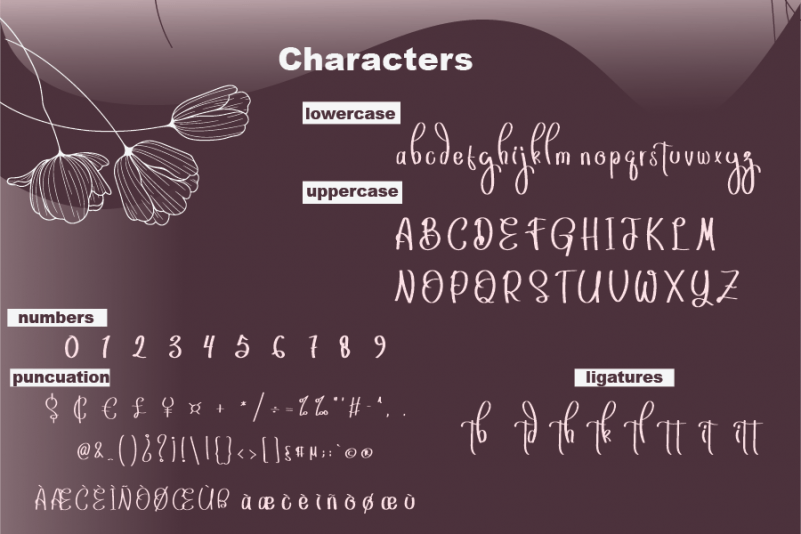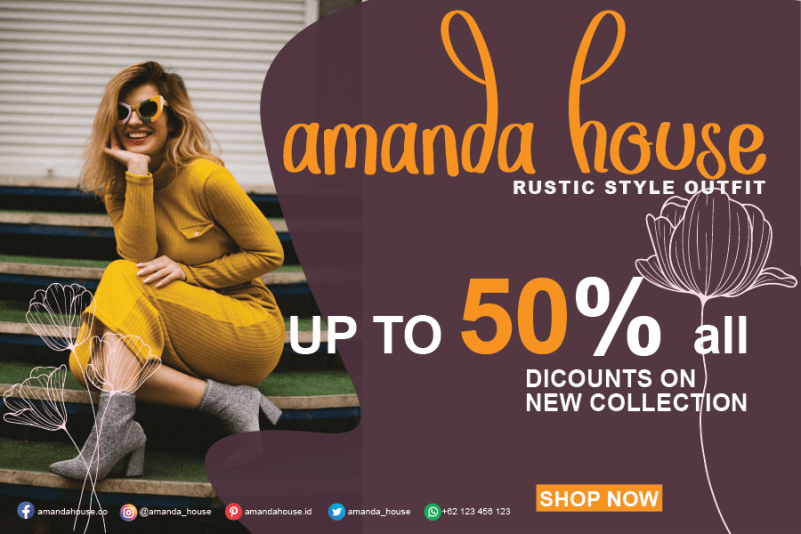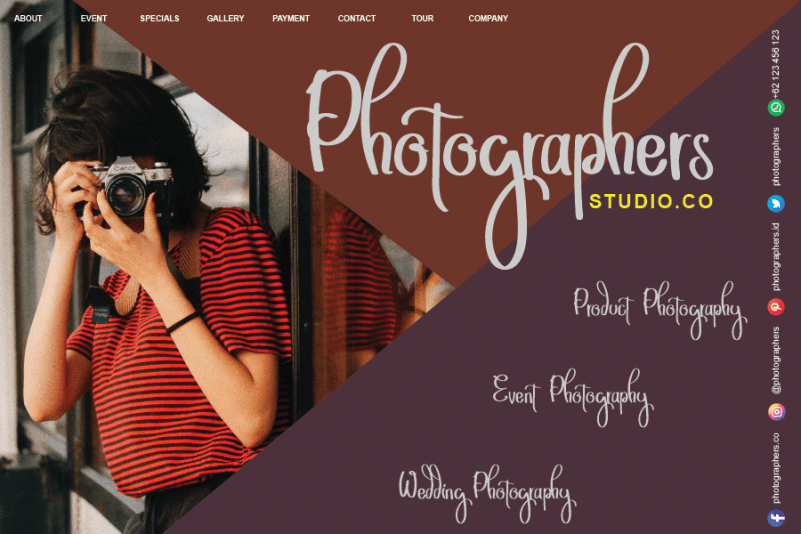
Story Ghosting Font
Story Ghosting Script Font
This is a well balanced, refined script font that emanates sophistication and elegance. Its stylish alternates and ligatures make this font the perfect match for any project.